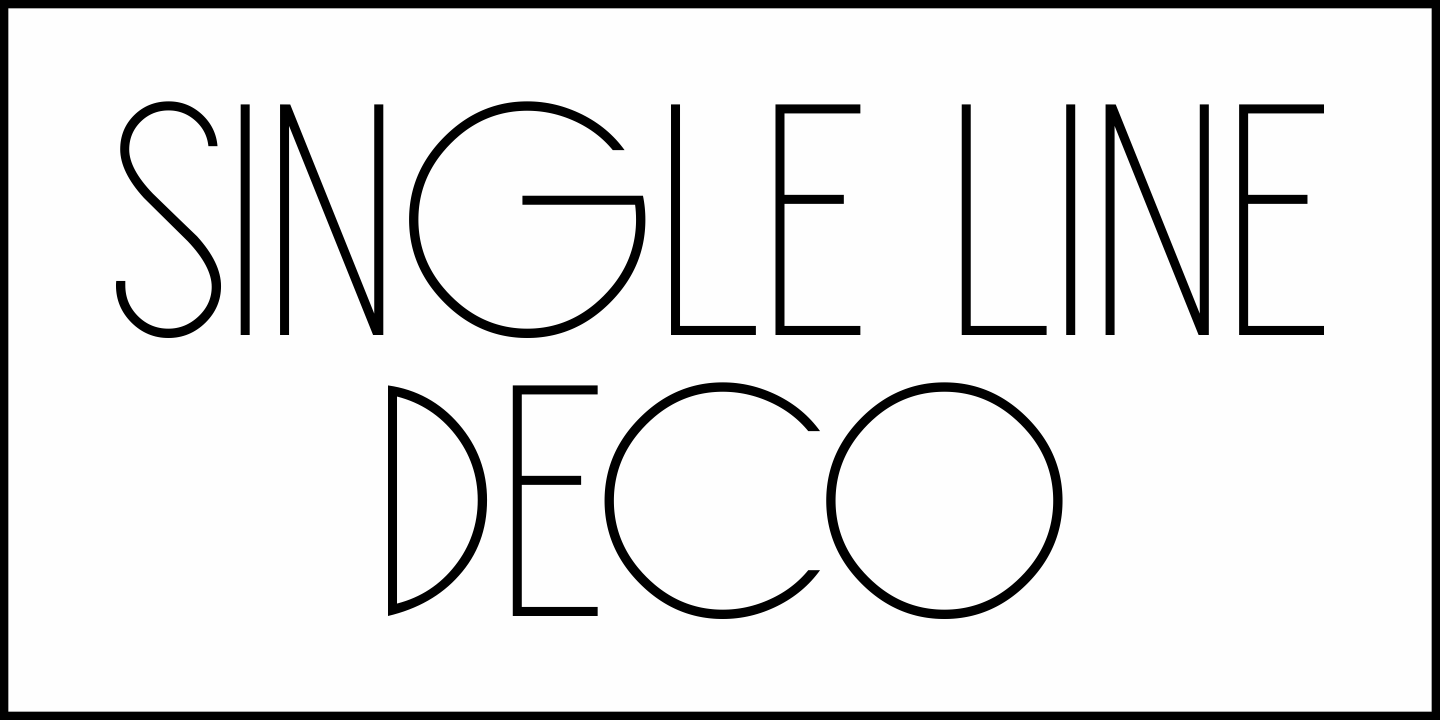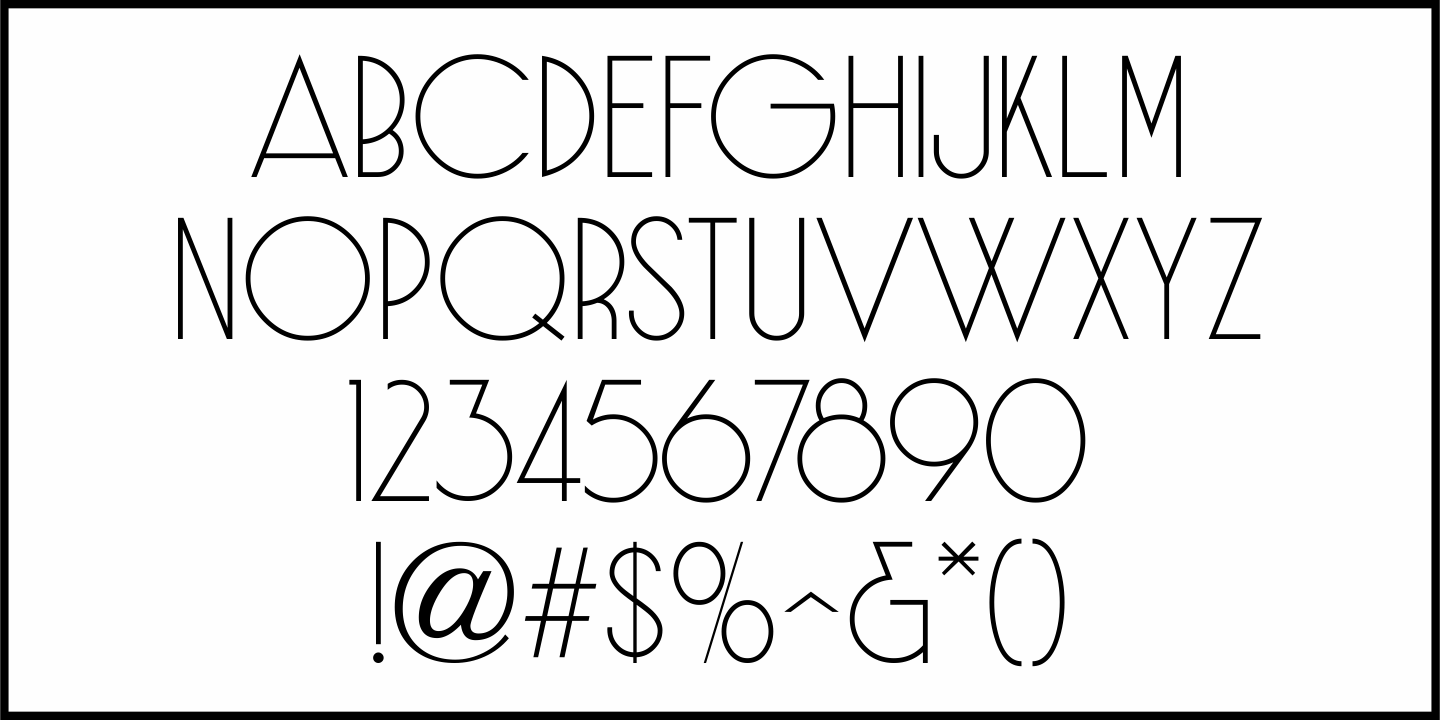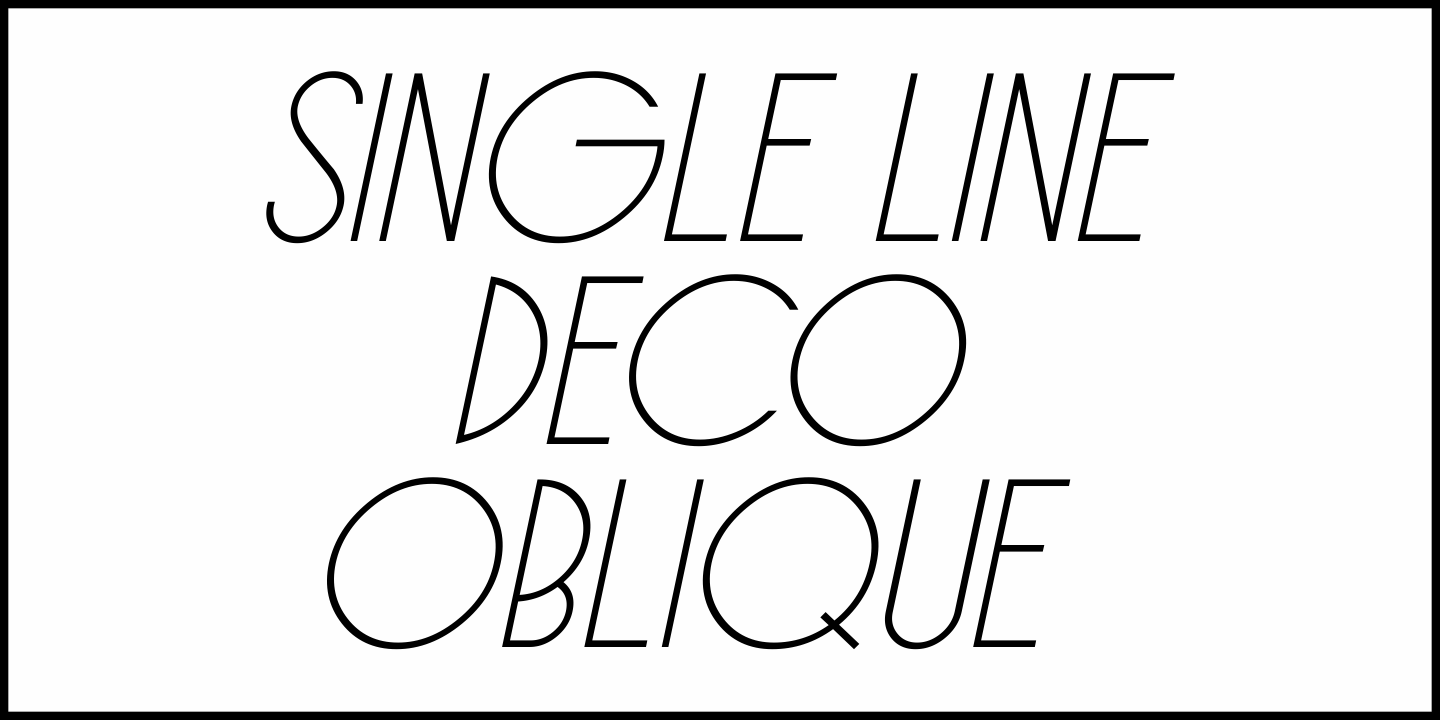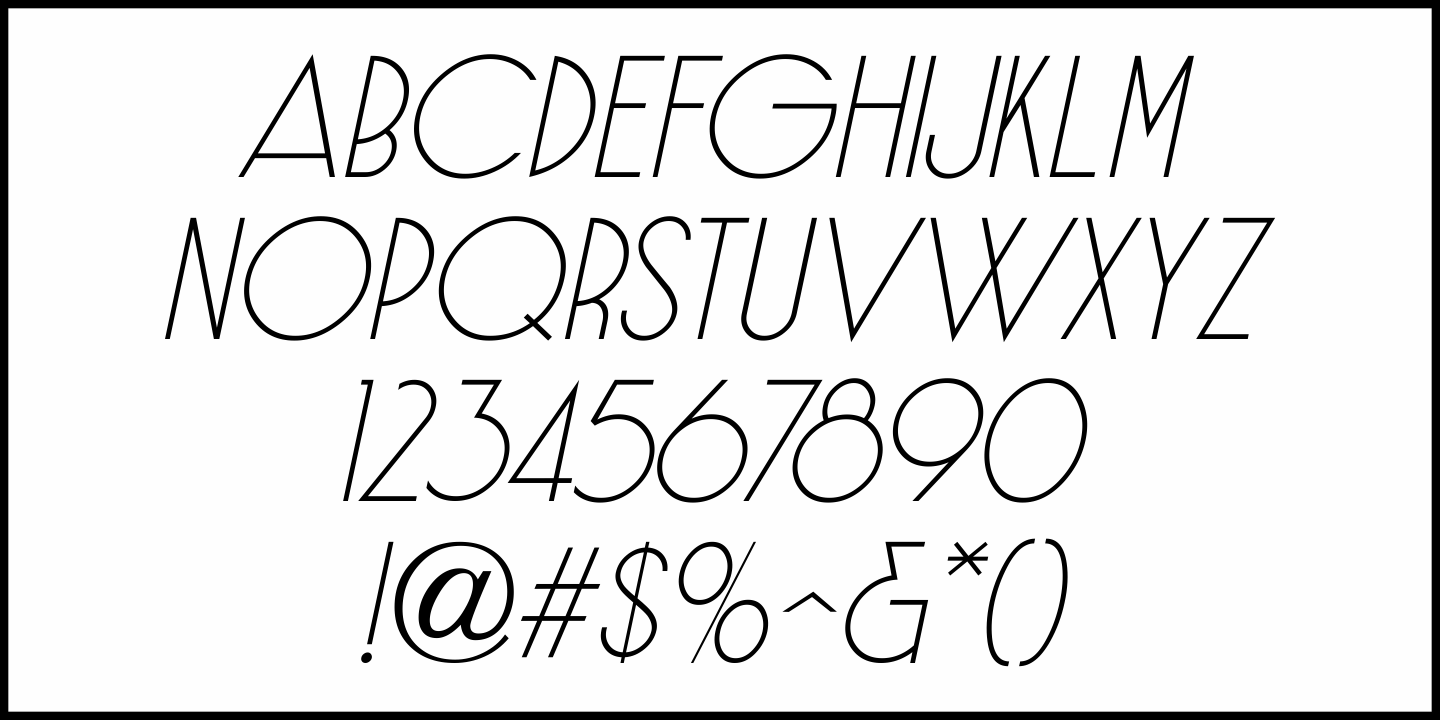
Single Line Deco
A makeup ad in the December, 1937 issue of Modern Screen magazine inspired Single Line Deco JNL, an Art Deco monoline which is available in both regular and oblique versions.
The font is based on the hand lettered headline touting 'Modern Eyes'.
Single Line Deco JNL Regular by Jeff Levine Fonts